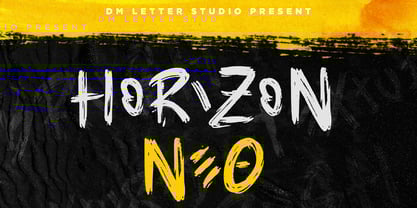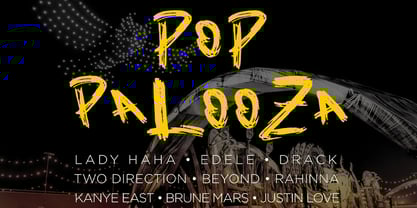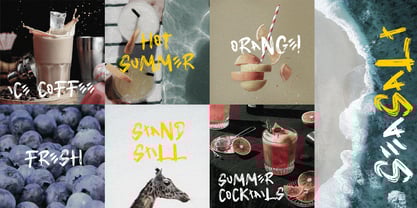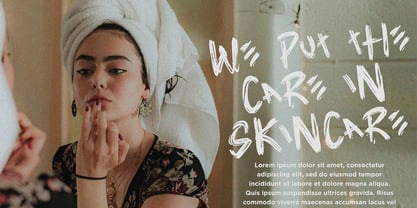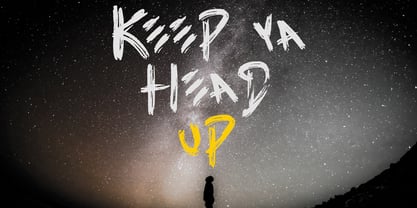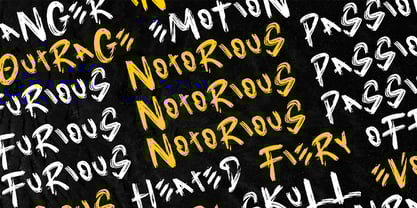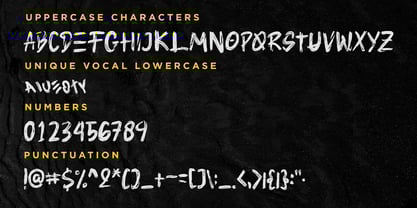
Horizon Neo
by DM Studio
The Horizon Neo Font Family was designed by Dimas Prasetyo and published by DM Studio. Horizon Neo contains 1 styles. More about this family
Horizon Neo is a bold and expressive organic brush font that brings a natural, hand-painted feel to your designs. With its dynamic strokes and raw texture, this font is perfect for creative projects that need a touch of artistic energy. Whether you're designing posters, branding, social media graphics, or packaging, Horizon Neo adds a unique handcrafted style that stands out. Its organic brush strokes create a sense of movement and authenticity, making it ideal for modern and stylish typography.
Features:
• Authentic Brush Texture: Handcrafted strokes give a natural and organic feel.
• Bold & Expressive: Perfect for eye-catching headlines, logos, and branding.
Designers: Dimas Prasetyo
Foundry: DM Studio